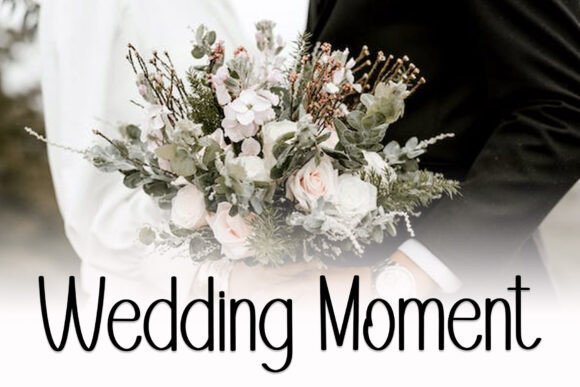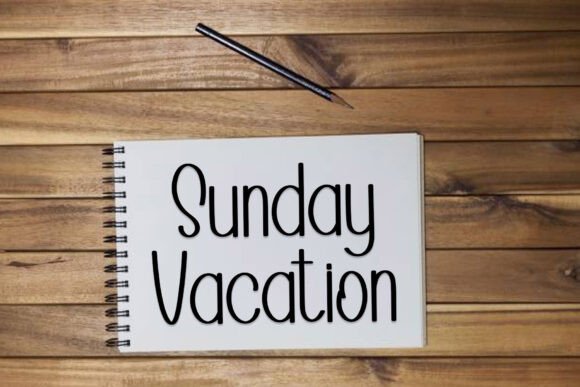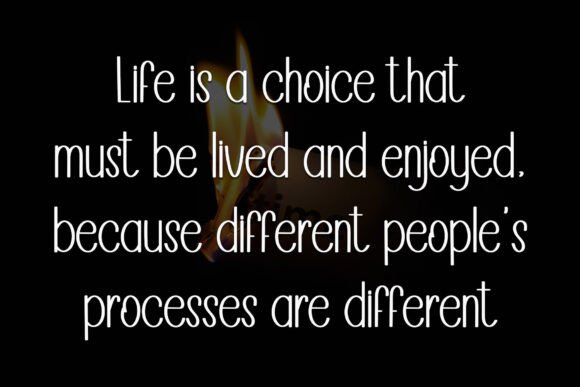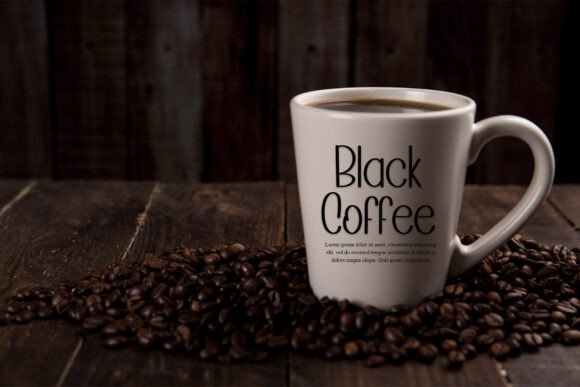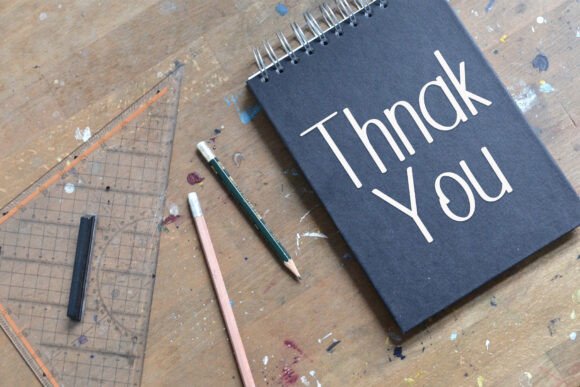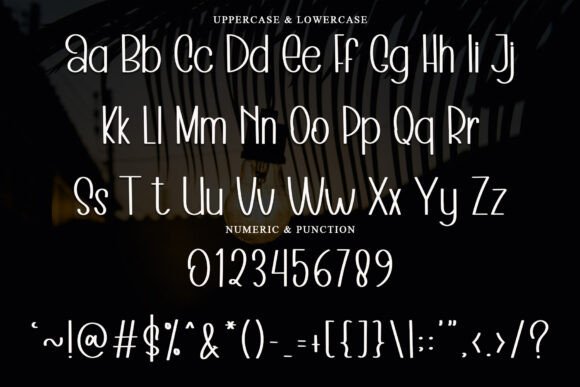
The Ultimate Guide to Family Font: Elevate Your Designs with Elegance
I’ll never forget the moment I stumbled upon the perfect font for a client’s wedding invitation project. I had been searching for hours, trying out different fonts, but none seemed to capture the essence of the elegant and modern design I had envisioned. That was until I discovered Family Font, a stylish and beautiful typeface that instantly elevated my design. In this article, I’ll share my experience with Family Font, its features, and how to make the most of it in your designs.
First Impressions: What I Love About Family Font
Family Font is a stunning typeface that exudes a contemporary atmosphere with impeccable form, inspired by timeless classic calligraphy. Here are some things I love about it:
- ✨ Elegant and sophisticated design
- ✅ PUA encoded for easy access to glyphs and ligatures
- 💡 Balanced and varied, perfect for a range of design projects
- 📚 Supports multiple languages
The Honest Review: Quirks and Limitations
While Family Font is an excellent choice for many design projects, there are a few quirks to be aware of:
- 🤔 Limited availability of certain characters in some applications
- ⚠️ May require additional setup to access all glyphs and ligatures
One of the standout features of Family Font is its OpenType features and glyphs. With PUA encoding, you can easily access a range of glyphs and ligatures to enhance your designs. Here are some tips for making the most of these features:
- Use stylistic alternates to create unique and creative typography.
- Experiment with different glyph combinations to add visual interest to your designs.
- Take advantage of ligatures to create smooth and flowing text.
Family Font was inspired by the timeless beauty of classic calligraphy. The designer aimed to create a typeface that would capture the essence of elegance and sophistication, while also being versatile and practical. The result is a font that’s perfect for a range of design projects, from weddings and events to branding and advertising.
| Author | NYA Letter |
Here are some frequently asked questions about Family Font:
- Q: What is Family Font?
- A: Family Font is a stylish and elegant typeface inspired by classic calligraphy.
- Q: Is Family Font PUA encoded?
- A: Yes, Family Font is PUA encoded for easy access to glyphs and ligatures.
- Q: Does Family Font support multiple languages?
- A: Yes, Family Font supports multiple languages, making it a great choice for international designs.